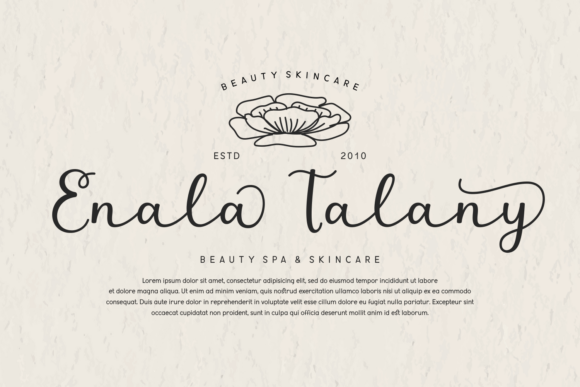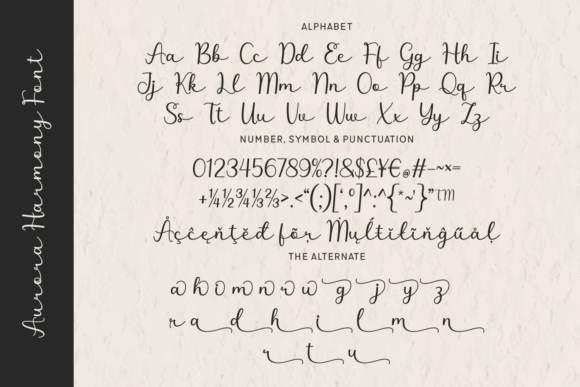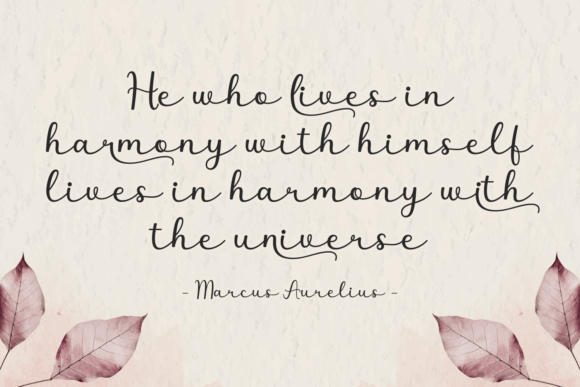
Aurora Harmony Font: Elevate Your Designs with Elegance and Sophistication
In the world of typography, few fonts capture the essence of elegance and sophistication as beautifully as the Aurora Harmony Font. This stunning handwritten script font is designed to add a touch of luxury to any design project, making it a perfect choice for wedding invitations, greeting cards, and branding initiatives that demand a high level of refinement.
The Beauty of Aurora Harmony
Aurora Harmony is characterized by its flowing swashes, elegant curves, and delicate strokes. Each letter is carefully crafted to create a sense of movement and fluidity, giving the font a dynamic and sophisticated feel. The swashes add a touch of drama and flair, making the font perfect for designs that require a bit of extra personality.
Wedding invitations and greeting cards are special occasions that deserve a font that can convey the emotions and sentimentality of the moment. Aurora Harmony is specifically designed to evoke feelings of romance, elegance, and joy, making it an ideal choice for:
- Wedding invitations and save-the-date cards
- Greeting cards for special occasions, such as birthdays, anniversaries, and holidays
- Stationery and letterhead designs
Branding Projects that Demand Sophistication
Aurora Harmony is not just limited to personal and special occasion designs. Its elegant and refined aesthetic also makes it a great choice for branding projects that require a touch of sophistication. Use it for:
- Logo designs for high-end brands
- Packaging designs for luxury products
- Website headers and titles that demand a professional and elegant look
Why Choose Aurora Harmony?
With so many fonts available, why choose Aurora Harmony? Here are just a few reasons why this font stands out:
- Unique and distinctive design: Aurora Harmony has a one-of-a-kind design that will make your projects stand out from the crowd.
- Elegant and sophisticated: The font’s flowing swashes and delicate strokes create a sense of luxury and refinement.
- Versatile: Use it for a wide range of design projects, from wedding invitations to branding initiatives.
- Easy to read: Despite its elegant design, Aurora Harmony is still easy to read, making it perfect for body text and headlines.
Tips for Using Aurora Harmony
To get the most out of Aurora Harmony, here are a few tips to keep in mind:
- Pair it with a simple font: Balance out the elegance of Aurora Harmony with a simpler font for body text.
- Experiment with swashes: Don’t be afraid to try out different swash combinations to add drama and flair to your designs.
- Use it in large sizes: Aurora Harmony is perfect for headlines and titles, so don’t be afraid to use it in large sizes to make a statement.
Aurora Harmony Font is a stunning handwritten script font that is sure to elevate your designs with its elegance and sophistication. With its flowing swashes, elegant curves, and delicate strokes, it’s the perfect choice for wedding invitations, greeting cards, and branding projects that demand a touch of luxury. Whether you’re a designer or crafter, Aurora Harmony is a font that will help you create beautiful and memorable designs.